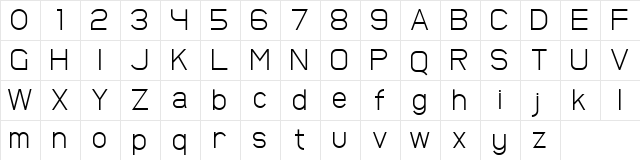
Broder Light Regular
Design Context for Broder Light Typeface
Broder Light is a composed and adaptable typeface that performs quietly and consistently across a wide range of design contexts. Its slender proportions lend an understated elegance to any composition.